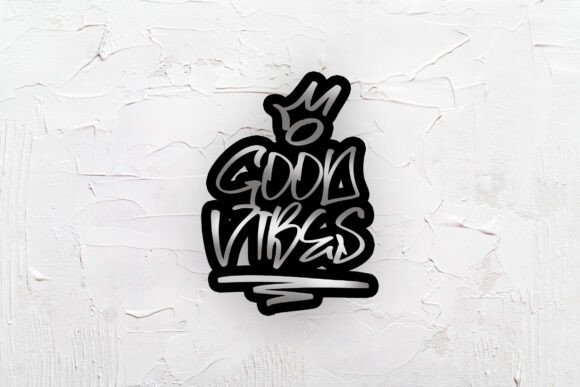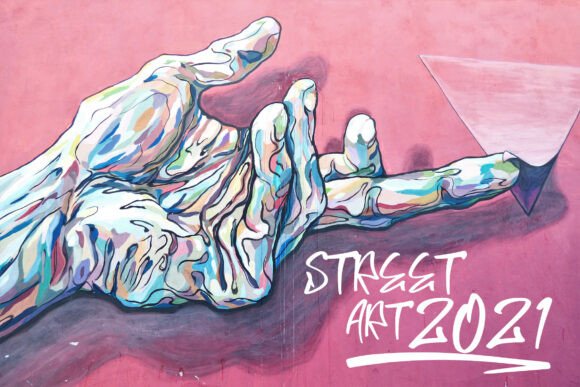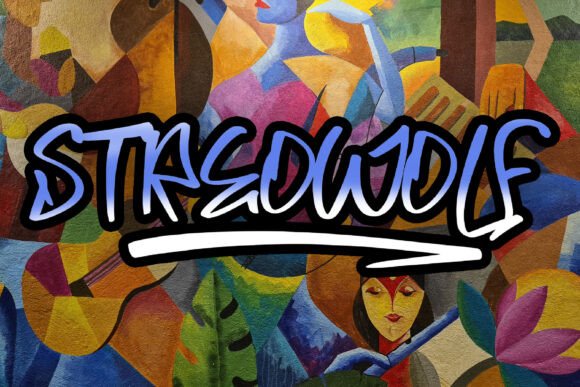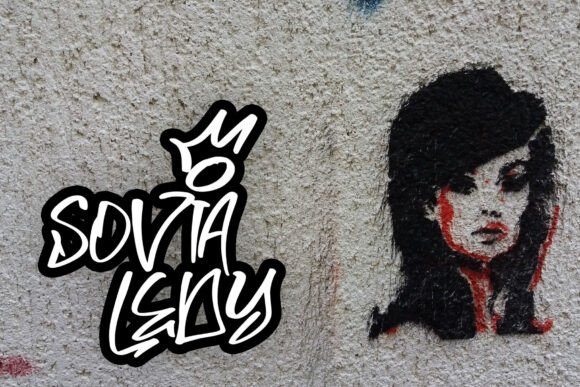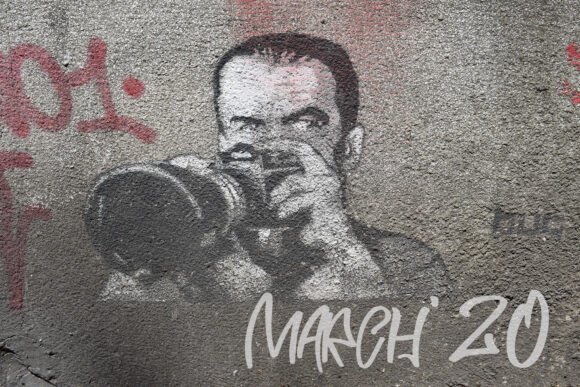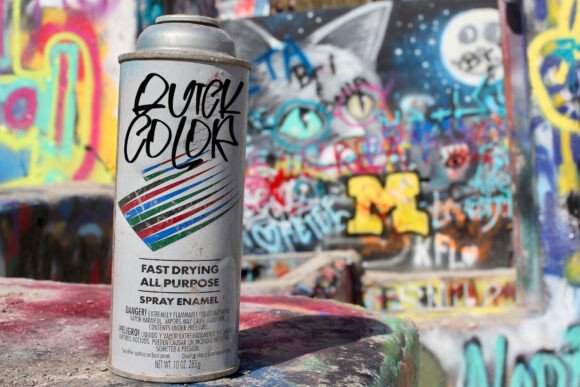
Introduction to Malafen Font
Have you ever found yourself stuck in a design rut, searching for the perfect font to give your project that extra oomph? You know, that moment when you’re staring at a blank canvas, willing the creative juices to flow, but nothing seems quite right? Well, we’re here to tell you that those days are behind you. Introducing the Malafen Font, a game-changing design resource that’s about to revolutionize the way you approach your creative projects.
With its bold, handbrush style, the Malafen Font brings a unique and dynamic touch to any design. Whether you’re working on a poster, t-shirt, or branding material, this font is sure to elevate your work and leave a lasting impression. And the best part? It’s available for a free download, so you can start experimenting with its high-quality design today.
Key Features of Malafen Font
- High-quality, elegant font perfect for creative projects requiring a sophisticated look.
- Unique, modern design with a transparent background, allowing for seamless integration into any background or design.
- Designed as a design resource for professionals and individuals alike, ideal for use in logos, branding materials, and other creative projects.
- Malafen Font is a high-quality, free font that is perfect for any creative project requiring a touch of elegance and sophistication.
Honest Review: Malafen Font
I recently stumbled upon the Malafen Font and I must say it’s been a game-changer for my creative projects. The first thing I noticed was the high quality of the font, it’s crisp, clean and visually appealing. I’ve been using it for a free download project and it looks amazing.
- High quality and crisp lines ✨
- Transparent background, making it perfect for creative projects ✨
- Wide range of applications, from digital to print media ✨
- Only comes in a few weights, which can be a limitation for some designers ⚠️
Overall, I’m thoroughly impressed with the Malafen Font. It’s a fantastic design resource that’s perfect for creative projects. While it may have a few limitations, the high quality and versatility make it well worth the download.
The Malafen Font is ideal for use in creative projects such as logo design, branding, and marketing materials. Its high-quality design and transparent background make it perfect for use in digital design projects. With its free download available, you can easily integrate it into your next project.
To get the most out of the Malafen Font, experiment with different font sizes, colors, and styles to find the perfect combination for your project. Use it in conjunction with other design elements to create a visually appealing design. With a little creativity, the Malafen Font can help take your design project to the next level.